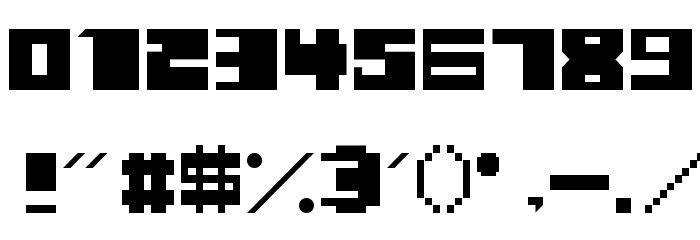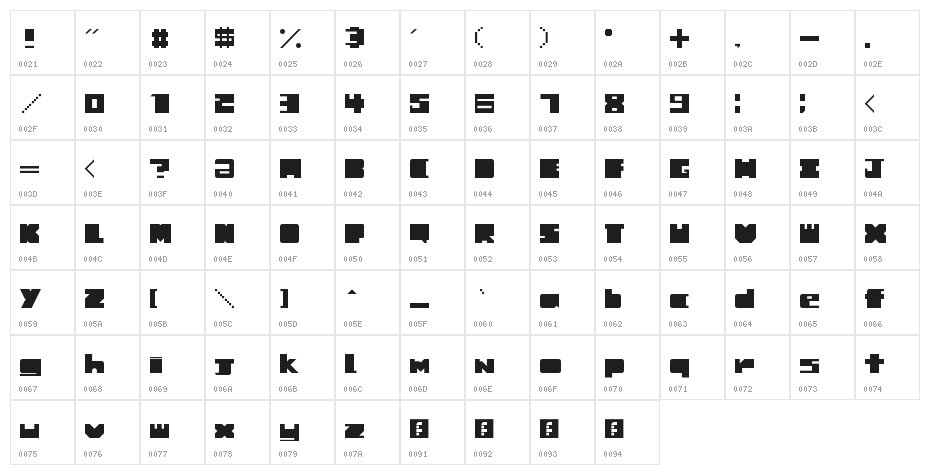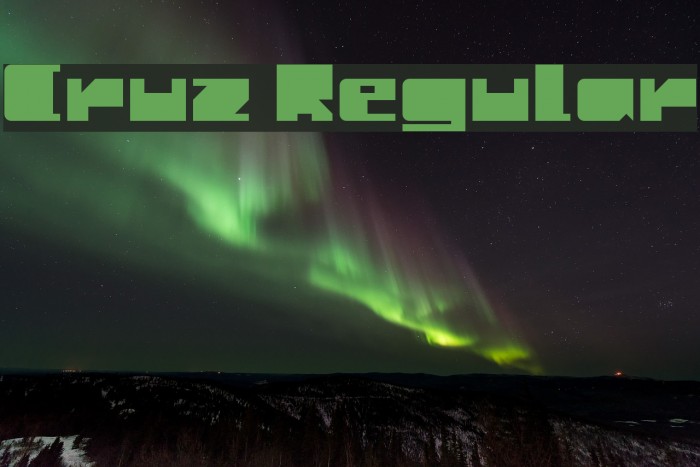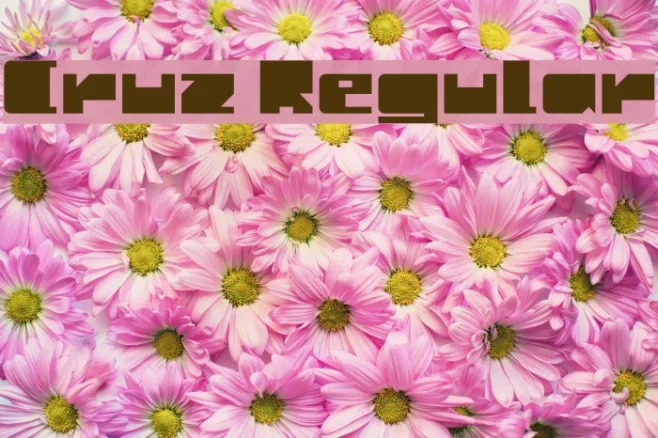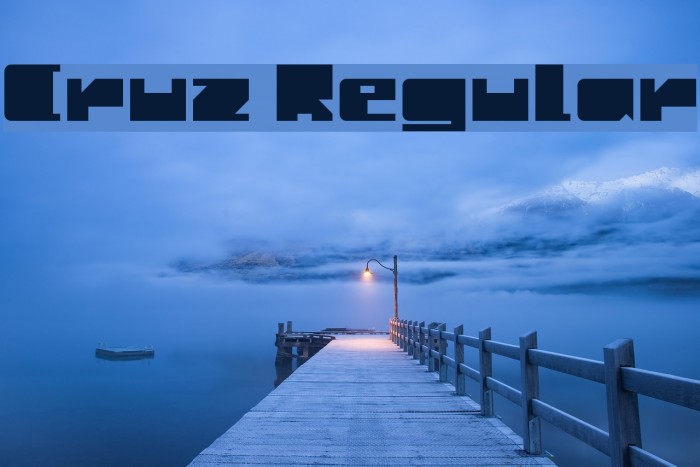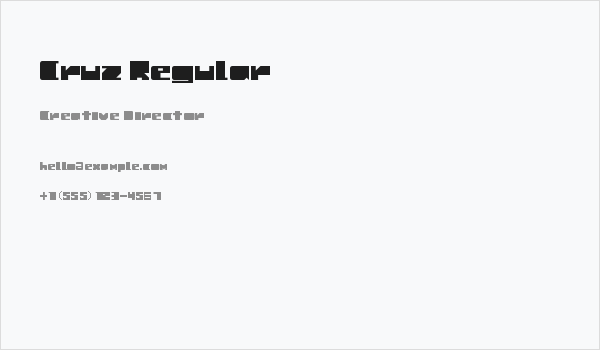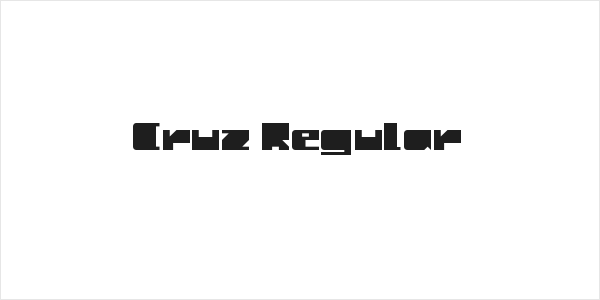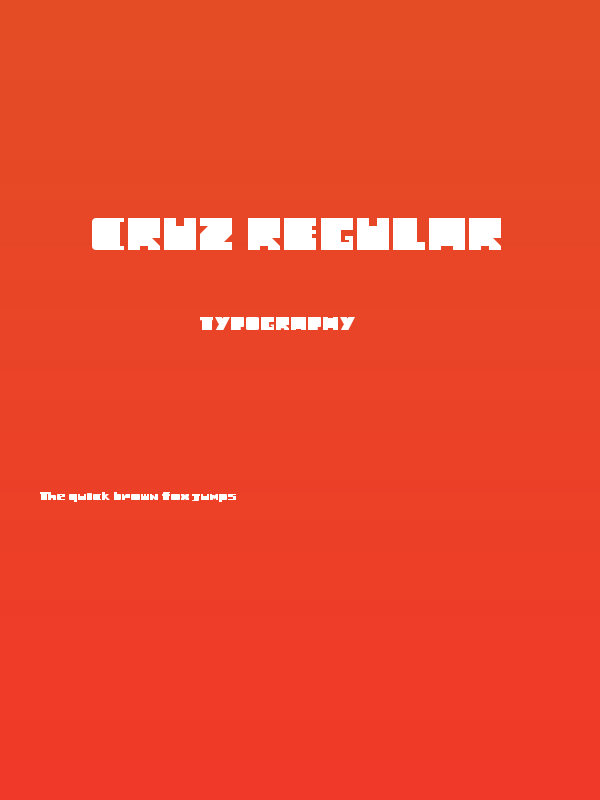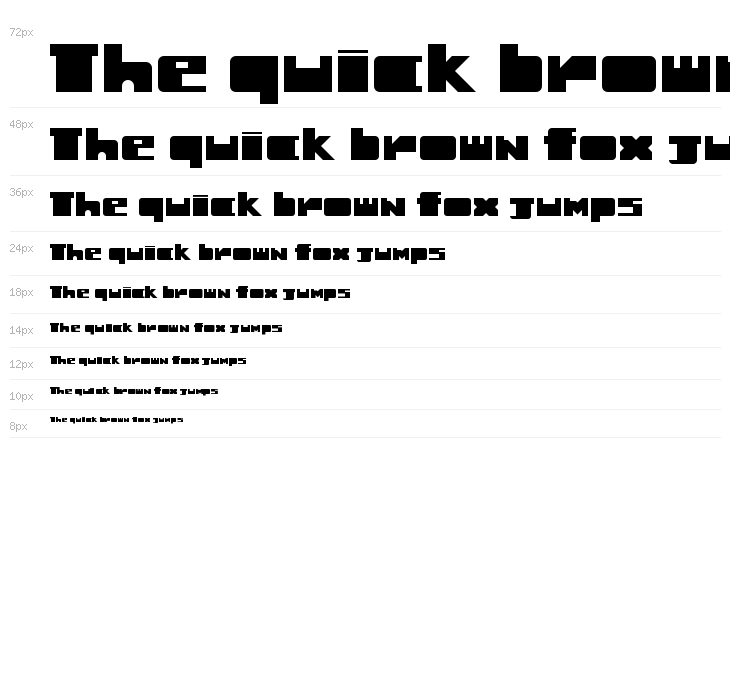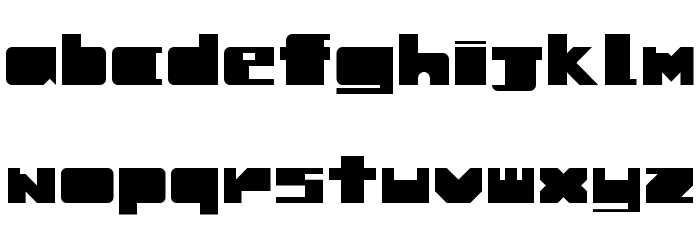
Cruz Regular Font
Cruz Regular Description
This font features a bold, geometric style with a strong presence. Each character is constructed with sharp, angular lines and a blocky appearance, giving it a futuristic and digital feel. The uppercase letters are particularly striking, with a uniform height and width that create a cohesive look. The lowercase letters maintain the same boldness but introduce slight variations in form, adding a touch of uniqueness. Numbers and special characters follow the same design principles, ensuring consistency across all glyphs. The overall design is highly legible, making it suitable for impactful headlines and attention-grabbing displays.